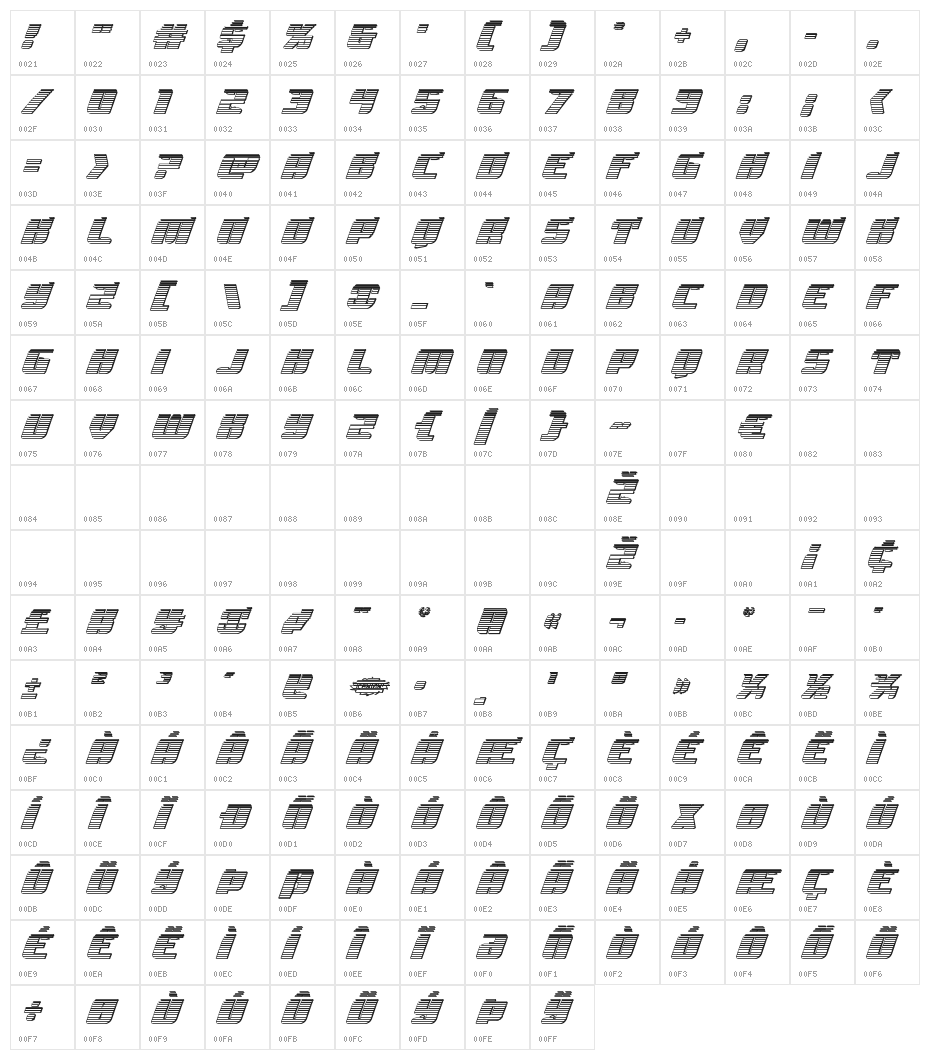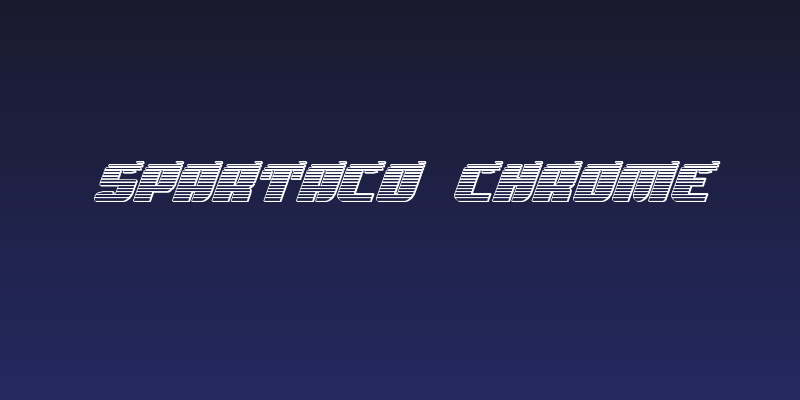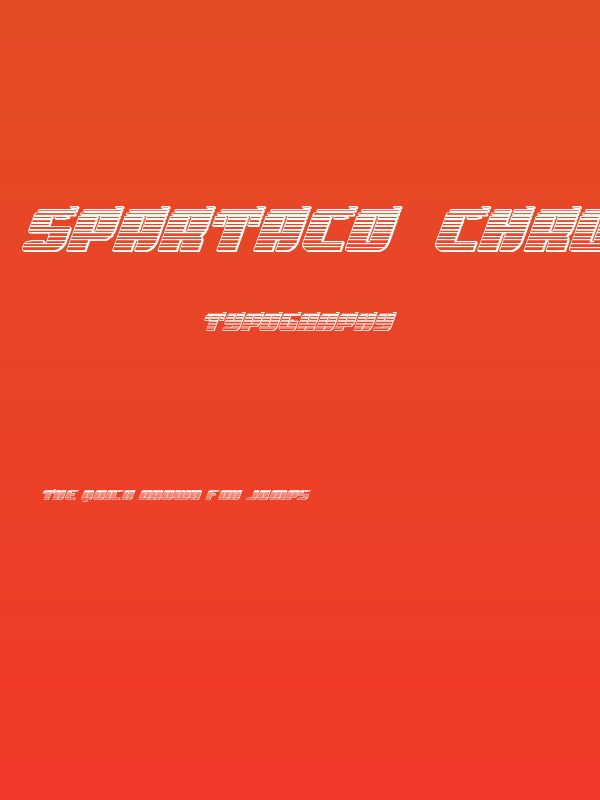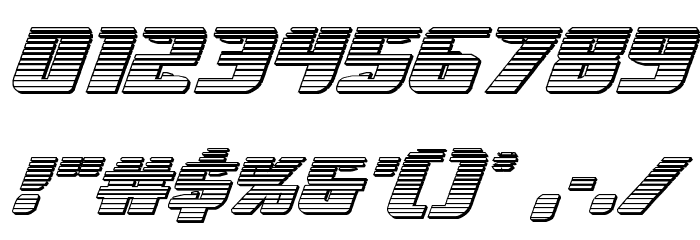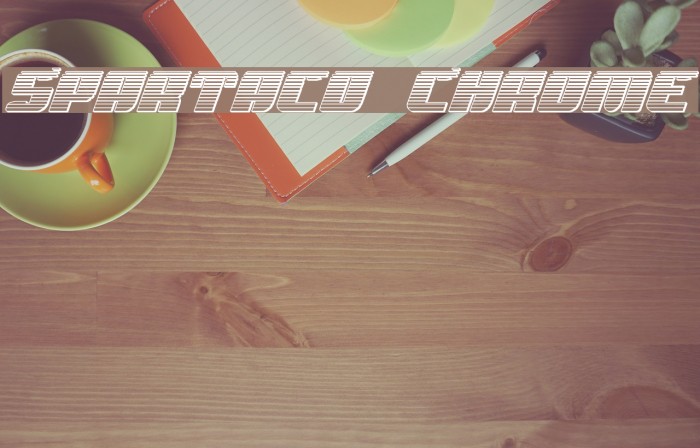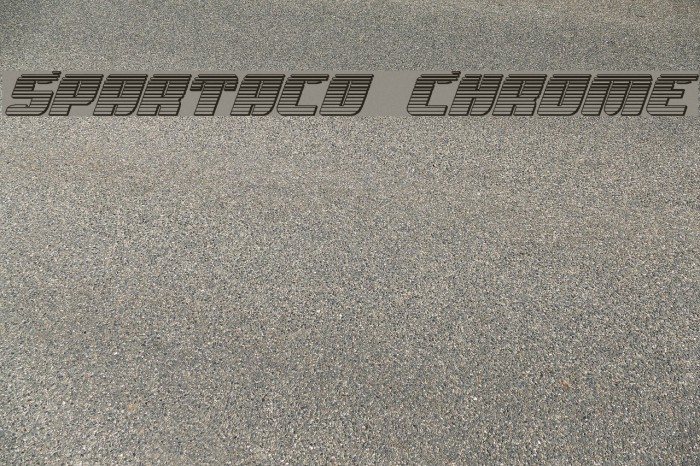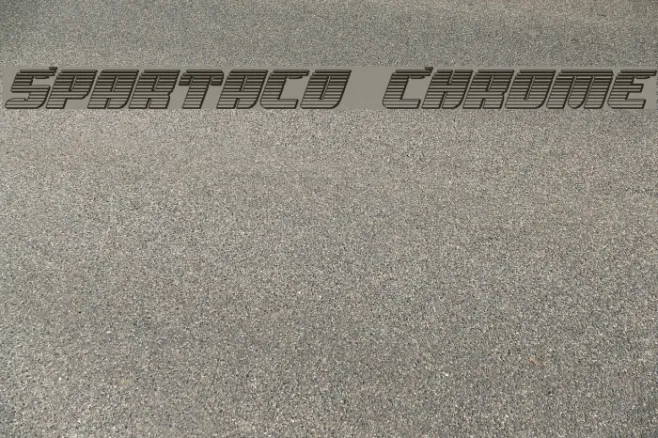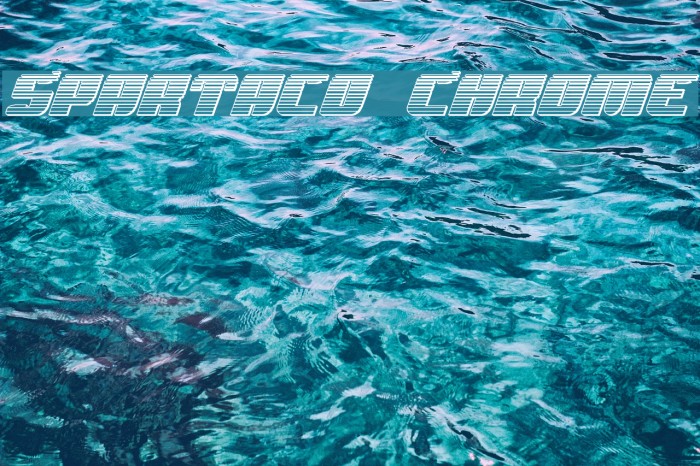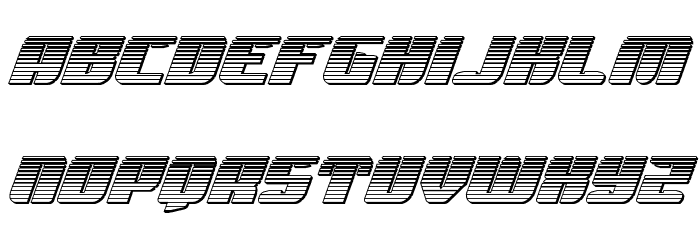
Spartaco Chrome Font
Spartaco Chrome Description
This font features a distinctive, futuristic design characterized by its bold, chrome-like appearance. Each character is composed of multiple parallel lines, creating a striped effect that gives the font a sense of movement and depth. The uppercase and lowercase letters maintain a consistent style, with sharp angles and a geometric structure. The numbers and special characters follow the same design principles, ensuring uniformity across all glyphs. This font's unique aesthetic makes it stand out, ideal for projects that require a modern and dynamic look.
| Proposed Projects | Ideal for sci-fi themed projects, tech branding, video game titles, and futuristic posters. |